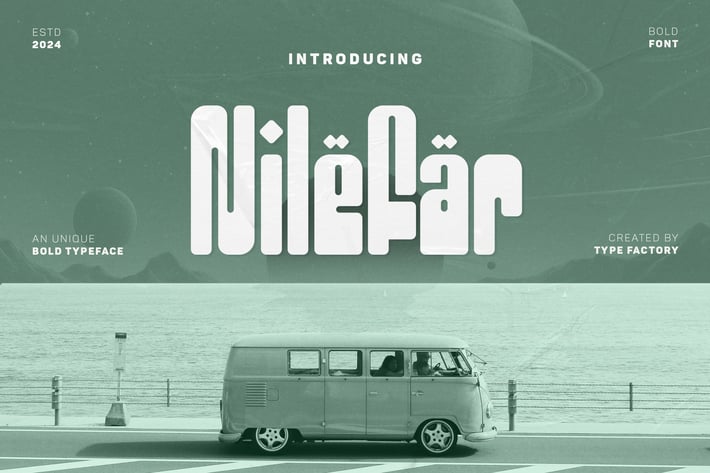
Nilefar is a striking bold typeface that merges strength with a touch of uniqueness.
Its robust, attention-grabbing letterforms make it perfect for headlines, logos, posters, and branding projects that require a bold, commanding presence.
Nilefar's distinctive design sets it apart from standard bold fonts, offering a modern yet powerful look that adds character to any project.
Ideal for both print and digital applications, Nilefar ensures your message is delivered with impact, style, and confidence.